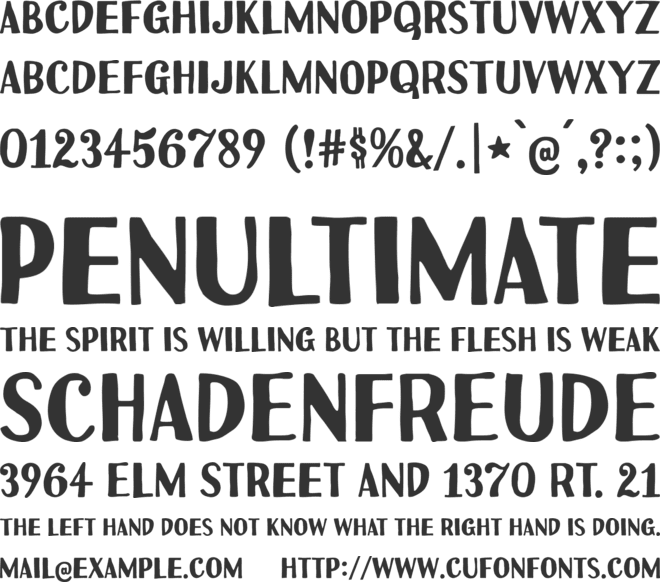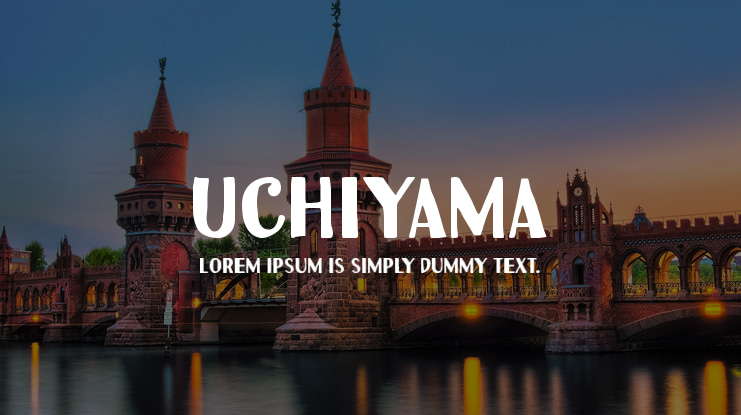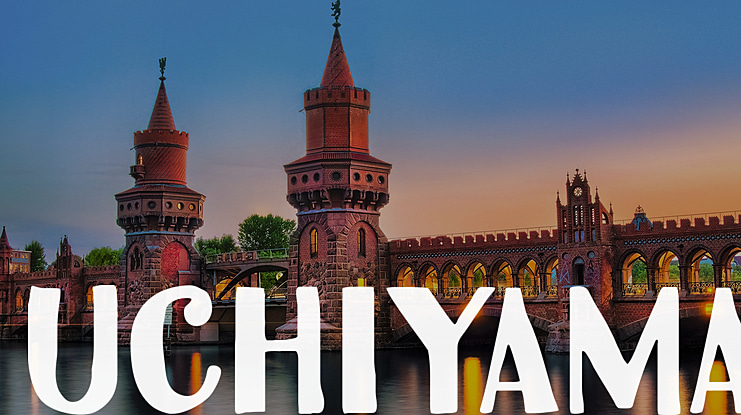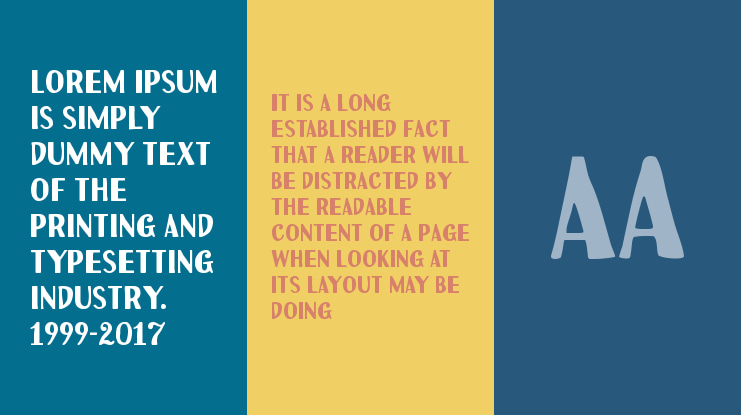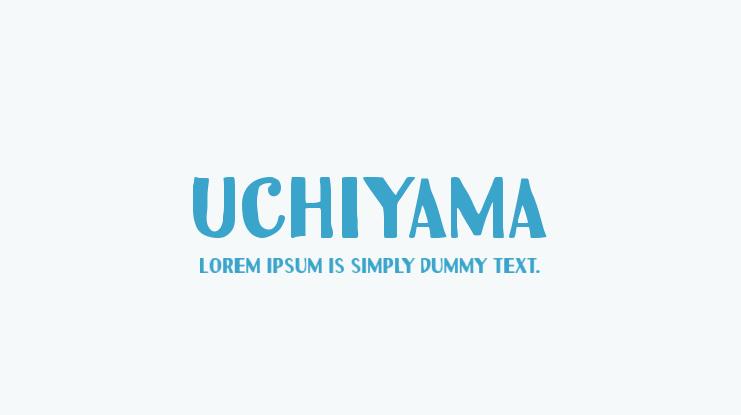
Uchiyama Font
Uchiyama is a hand-drawn headliner, reminiscent of designs seen on mid-20th Century Japanese matchbook covers. In OpenType savvy applications, letter and numeral variations will automatically shuffle for a more natural, hand-drawn feeling.